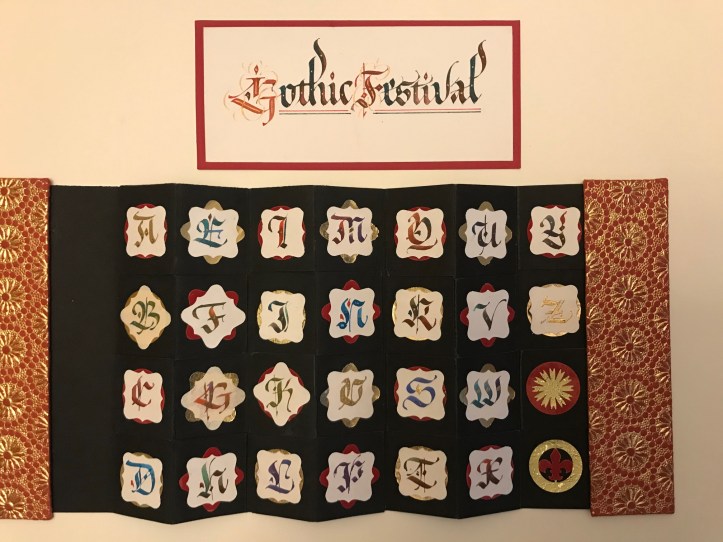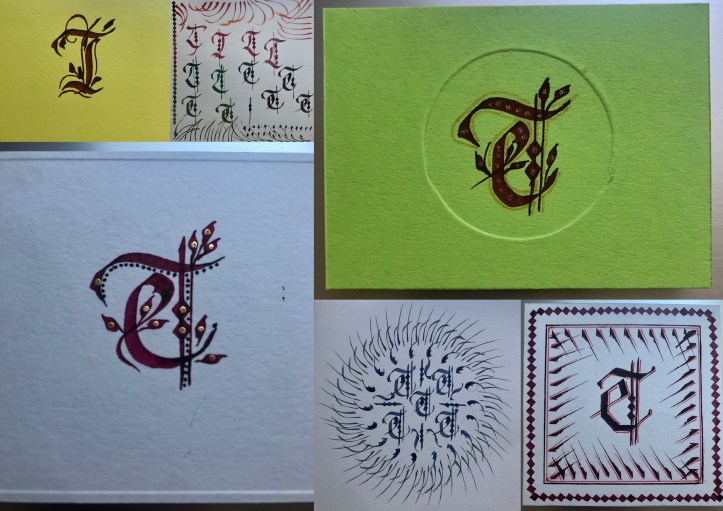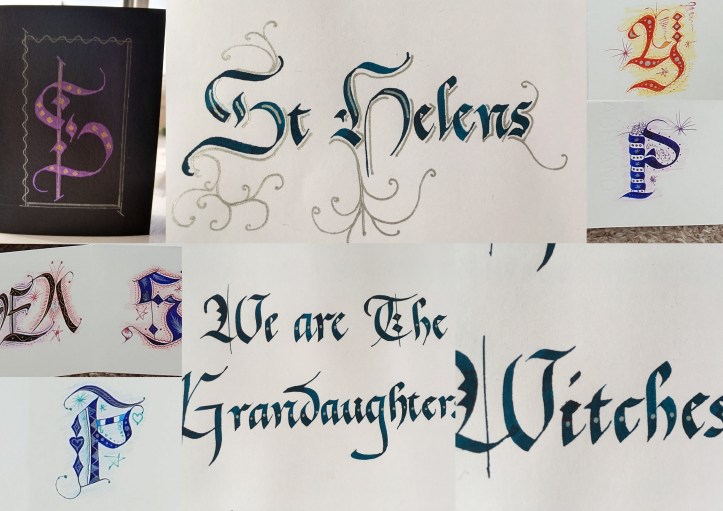
Barry Morentz actually attended one of our own workshops at Highnam with Rachel Yallop four years ago while he was over here doing research work. He is well known in the US for teaching his famous Pointed Modern Gothic script. On 20 March, he did a special workshop by Zoom introducing us to how Gothic Capitals are constructed and to ways of designing our own. How exciting – especially as there are hundreds of models and it’s always difficult to fit capitals to lower case scripts. The idea of looking at his exemplars of variations and the building block marks was to have fun with our own versions of Gothic Capitals. This was not a lesson in exact historic copies. Go wild, dress them up – use gel pens or gold gouache to add sparkle. The capitals are great for those special cards when you need a bit of a jazzy style and bling. They can be matched up with more sober black (or other colours) gothic miniscules.